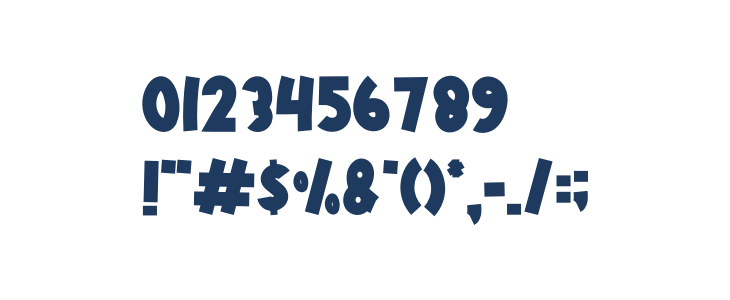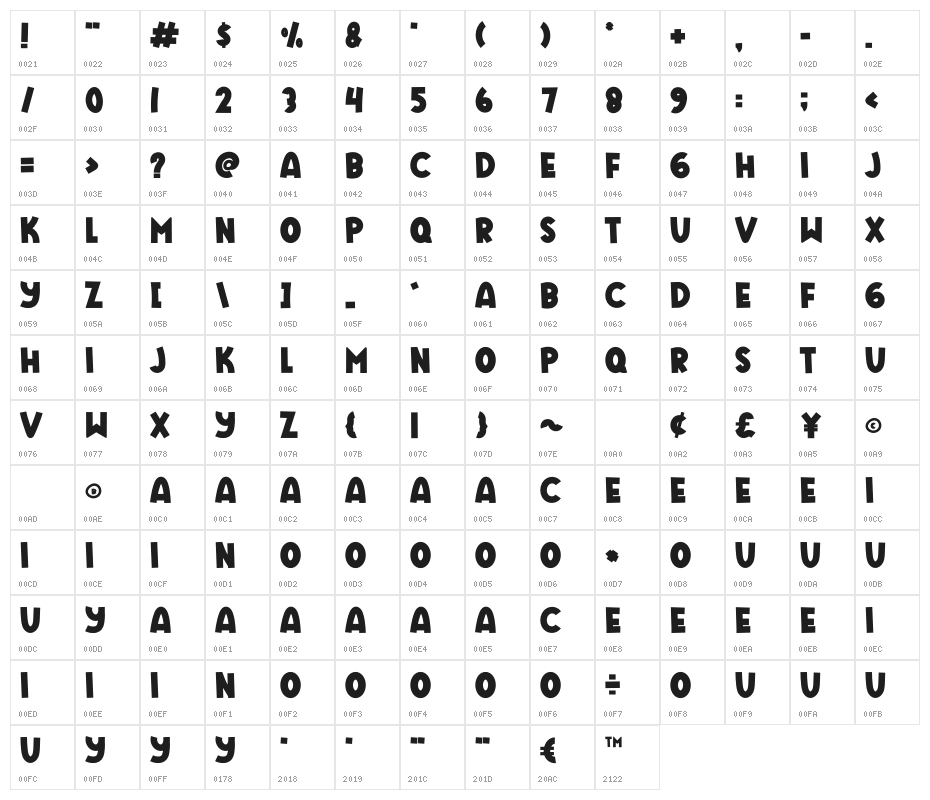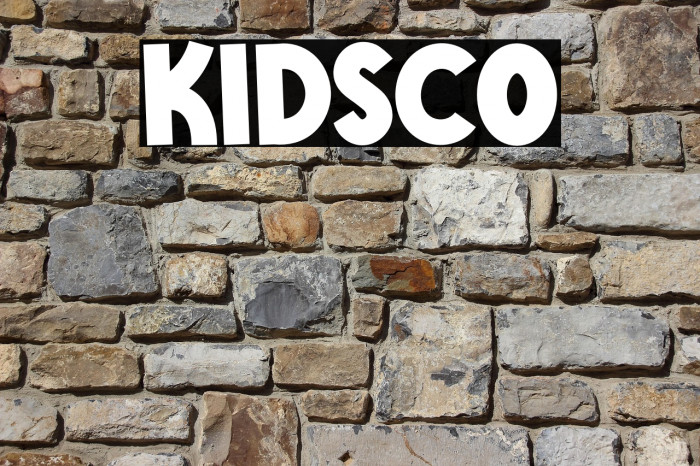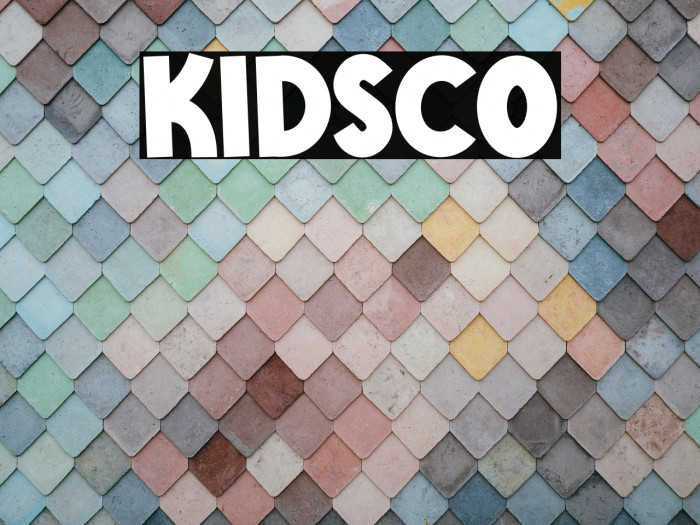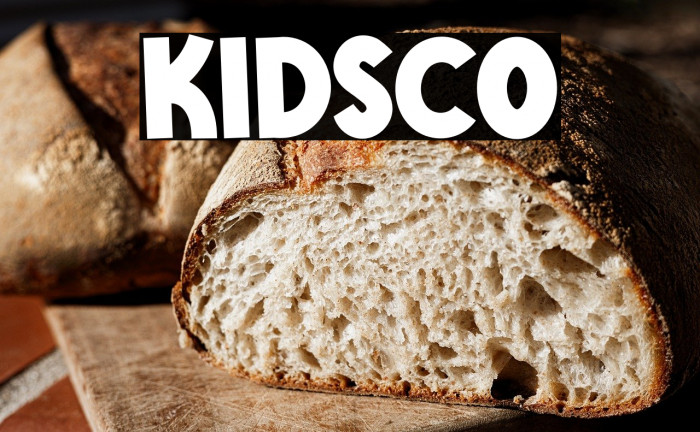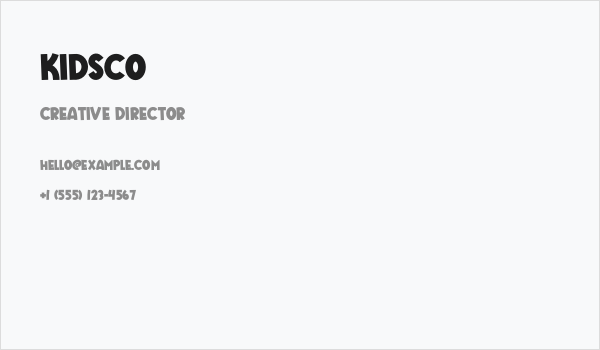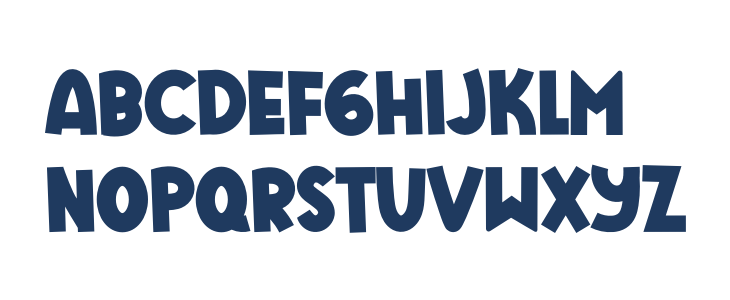
Kidsco Font
Kidsco Description
This playful and bold font features thick, rounded characters with a whimsical and friendly appearance. The letters are slightly irregular, adding a sense of fun and spontaneity. The uppercase and lowercase letters maintain a consistent style, with a strong emphasis on curves and a slightly exaggerated form. The numbers and special characters follow the same playful design, making the font suitable for a variety of creative applications. Its boldness ensures high visibility, making it ideal for children's materials, playful branding, or any project that requires a touch of humor and approachability.
| Overall Style | Playful |
| Proposed Projects | Ideal for children's books, playful branding, toy packaging, and fun event posters. |